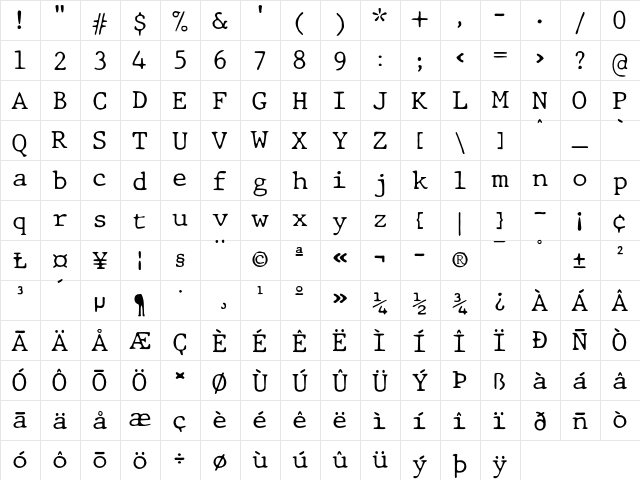
JMH Typewriter dry Thin Regular Font Preview
Design Context for JMH Typewriter dry Thin Typeface
JMH Typewriter dry Thin brings the precise, column-aligned rhythm of monospaced typography to designs that value technical clarity and systematic order. The delicate stroke weight brings airiness and refinement to layouts.
Pro Tip: Use JMH Typewriter dry Thin with slightly increased line-height for extended reading — fixed-width spacing can feel dense in longer passages without extra breathing room.